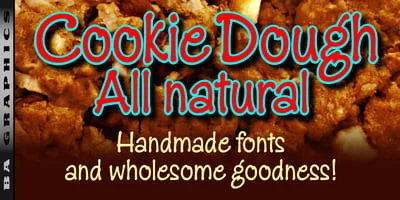
Cookie Dough Font
Cookie Dough Font is a wonderfully whimsical and delightful display typeface that perfectly embodies the soft, sweet, and comforting appeal of freshly baked treats. Its playful, often rounded and slightly irregular forms give it an unmistakable handcrafted charm, making it an excellent choice for projects that aim to convey warmth, friendliness, and a touch of wholesome fun. Imagine it perfect for boutique bakery branding, cozy cafe menus, cheerful children's book titles, artisanal food packaging, heartwarming greeting cards, or unique craft fair signage. This font excels in environments where a sense of approachability, homemade quality, and a genuinely inviting aesthetic are paramount. It’s particularly effective for brands and creatives who want their message to resonate with a feeling of comfort, joy, and unpretentious creativity.
What makes Cookie Dough Font truly exciting is its ability to infuse designs with an infectious sense of sweetness and an inviting, tactile feel. It often features subtle imperfections or a soft, dough-like texture that gives each character a unique, almost edible charm. This font isn't just about displaying text; it's about inviting a smile, telling a story with warmth and sincerity, and injecting your designs with a sense of personal connection and undeniable charm. It has a powerful ability to feel both incredibly familiar and surprisingly versatile, making it an ideal tool for designers who want their work to convey personality, warmth, and a truly memorable visual impact. Cookie Dough Font empowers brands and creatives to project an image that is inviting, authentic, and full of heartfelt creativity.
The Cookie Dough Font family typically offers various options to enhance its expressive capabilities. You'll often find it available in a strong, legible regular weight that best showcases its unique hand-drawn style. Some versions might include stylistic alternatives for certain characters or a set of ligatures that further emphasize its handcrafted appeal and allow for more customized typographic compositions, mimicking natural variations. The comprehensive character set generally covers standard Latin characters, numbers, and a selection of punctuation marks, ensuring that Cookie Dough Font is suitable for a wide variety of creative and commercial applications. Its distinctive and memorable presence ensures that any project featuring Cookie Dough Font will leave a strong, lasting impression.